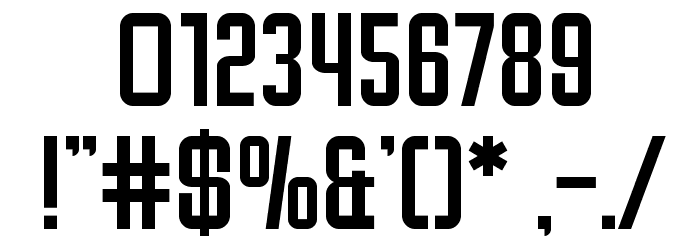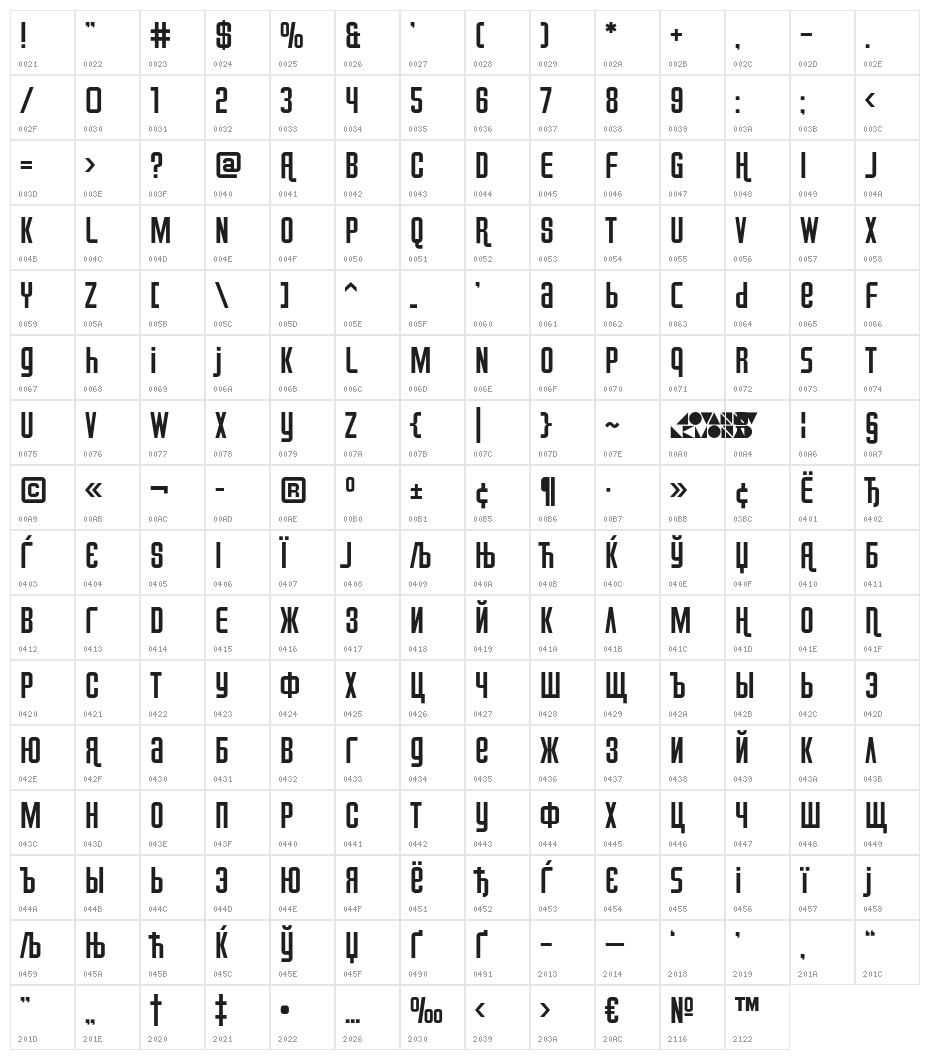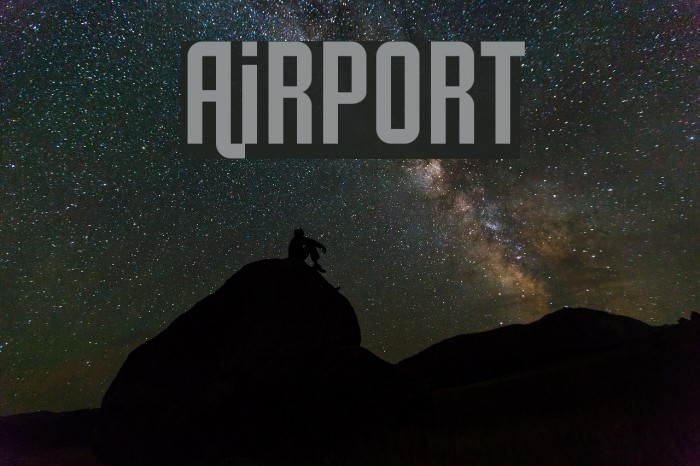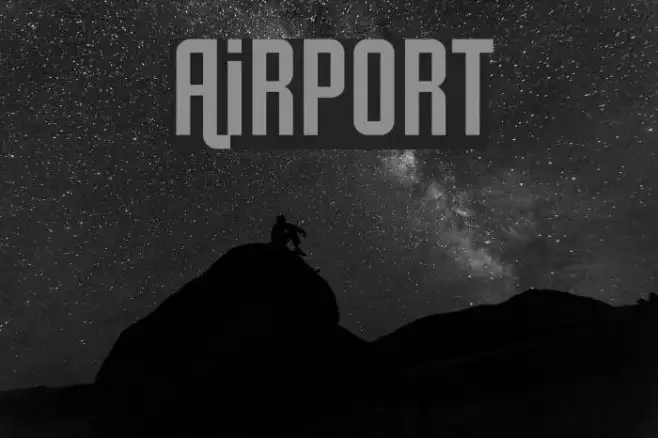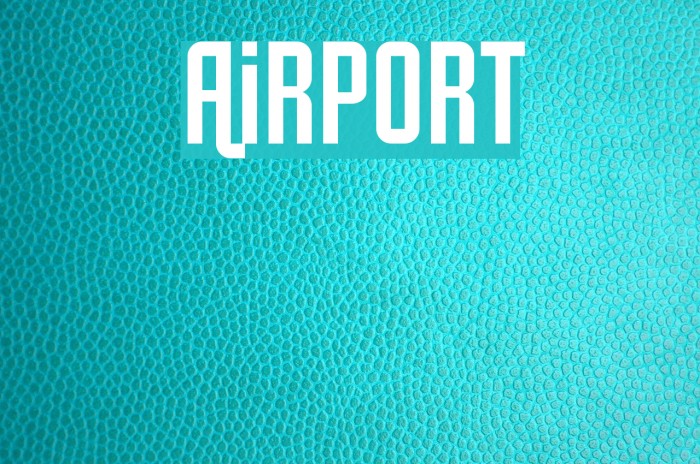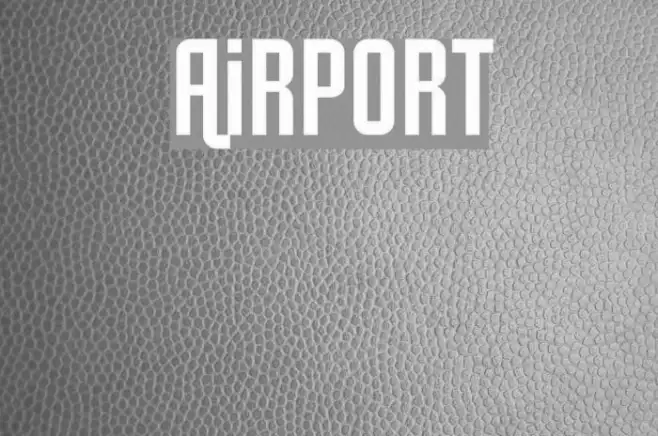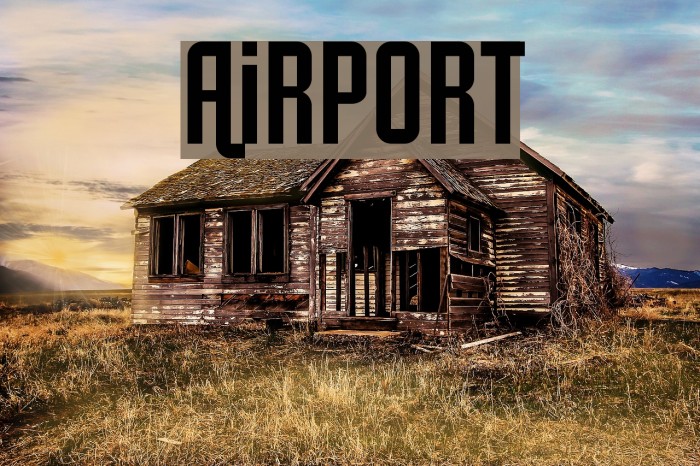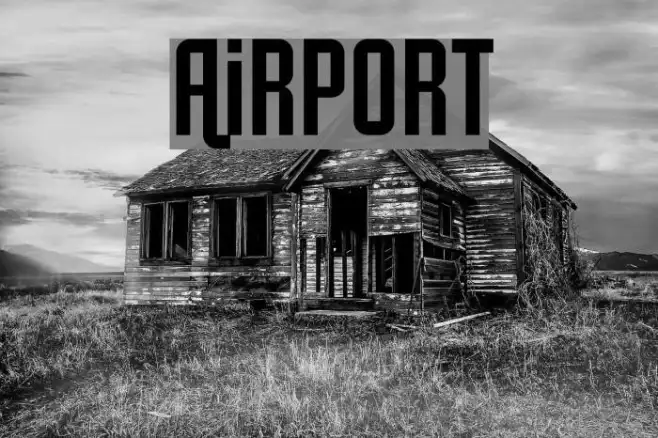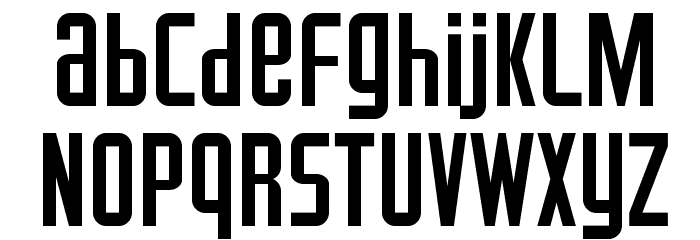
Airport Font
Airport Description
This font features a bold, geometric design with a modern and industrial feel. The characters are tall and narrow, giving it a condensed appearance. The strokes are consistent in width, providing a uniform look across all letters and numbers. The uppercase and lowercase letters share similar heights, enhancing the font's compactness. The numerals are clear and easy to read, making them suitable for various applications. Special characters are included, maintaining the same bold and structured style. This font's design is ideal for creating a strong visual impact.
| Use Case | Headlines, Logos, Signage |
| Proposed Projects | Ideal for signage, posters, branding, and editorial design where a strong, modern look is desired. |